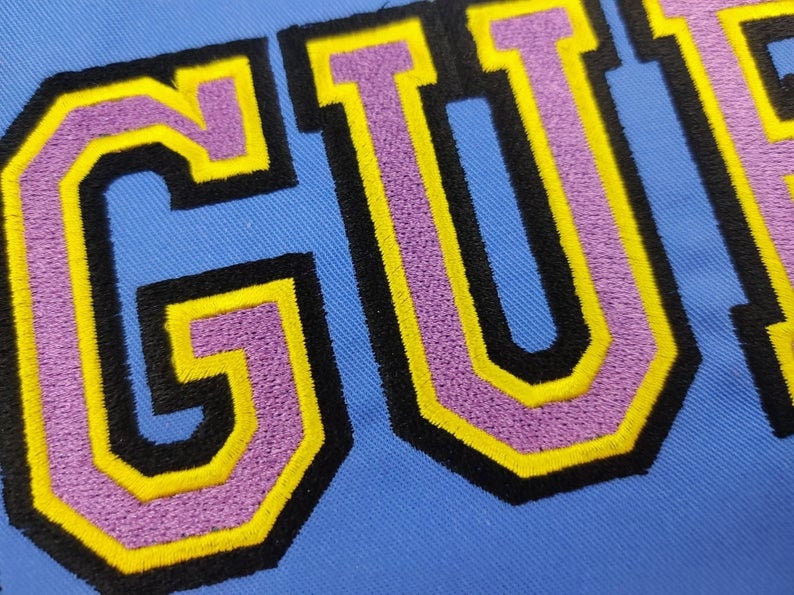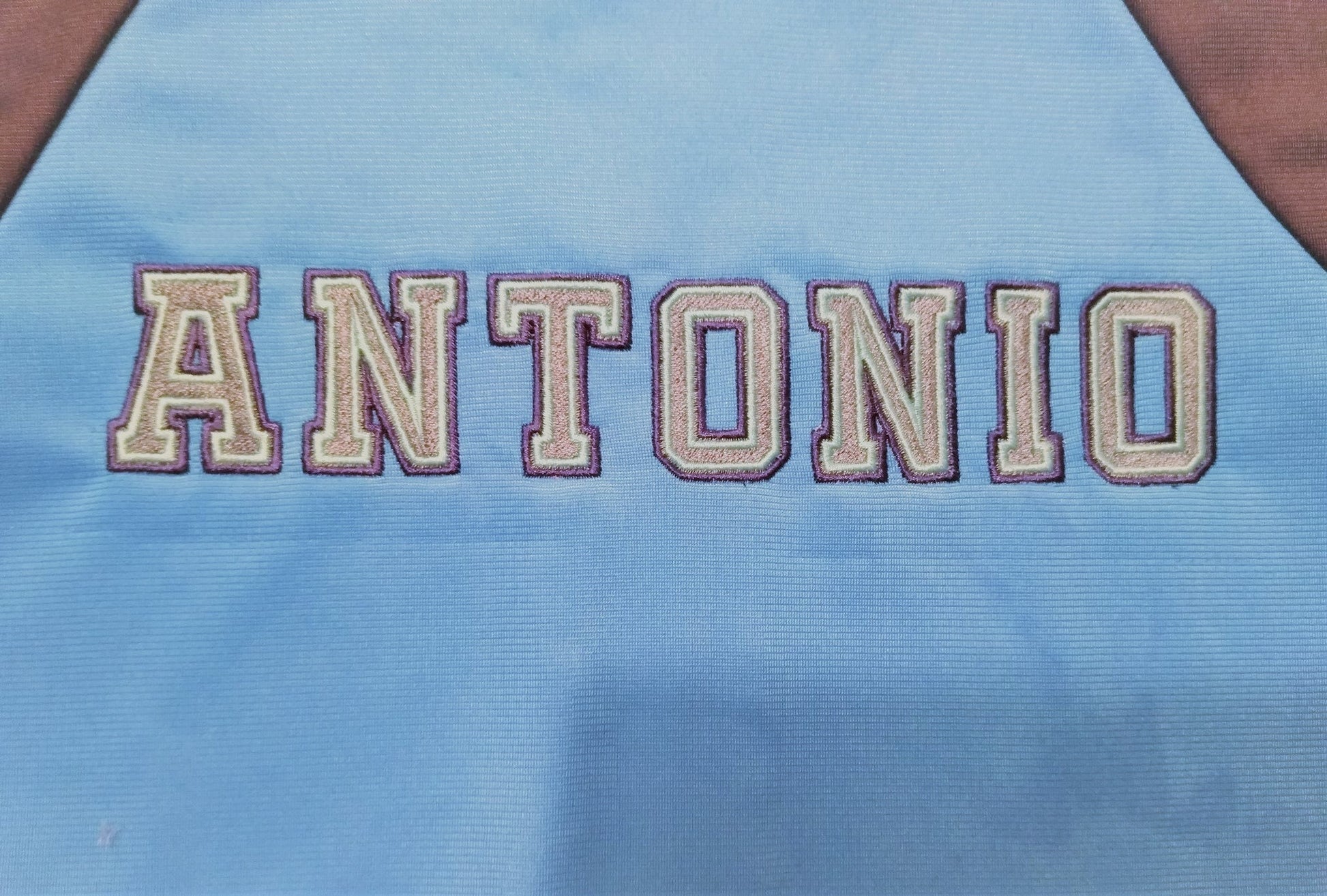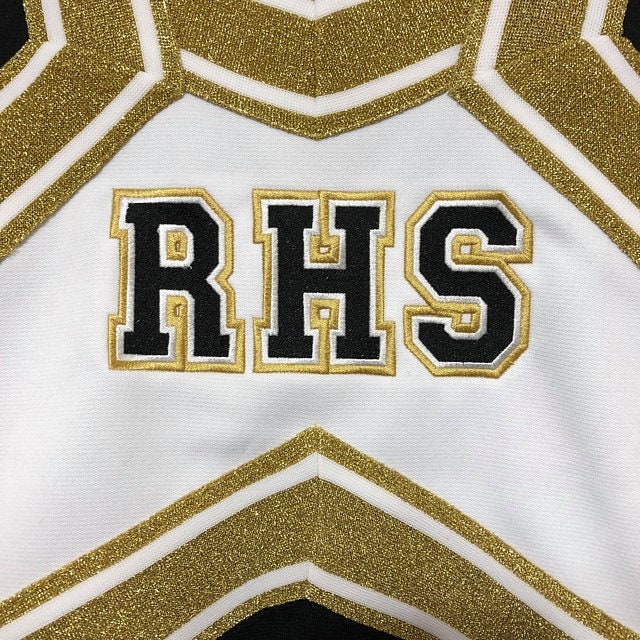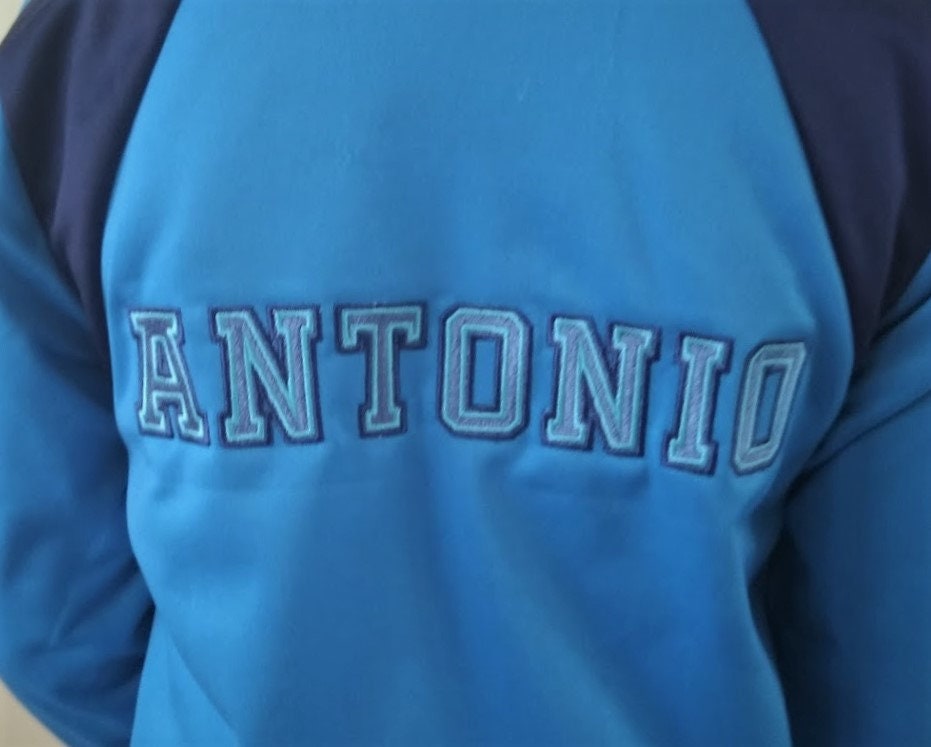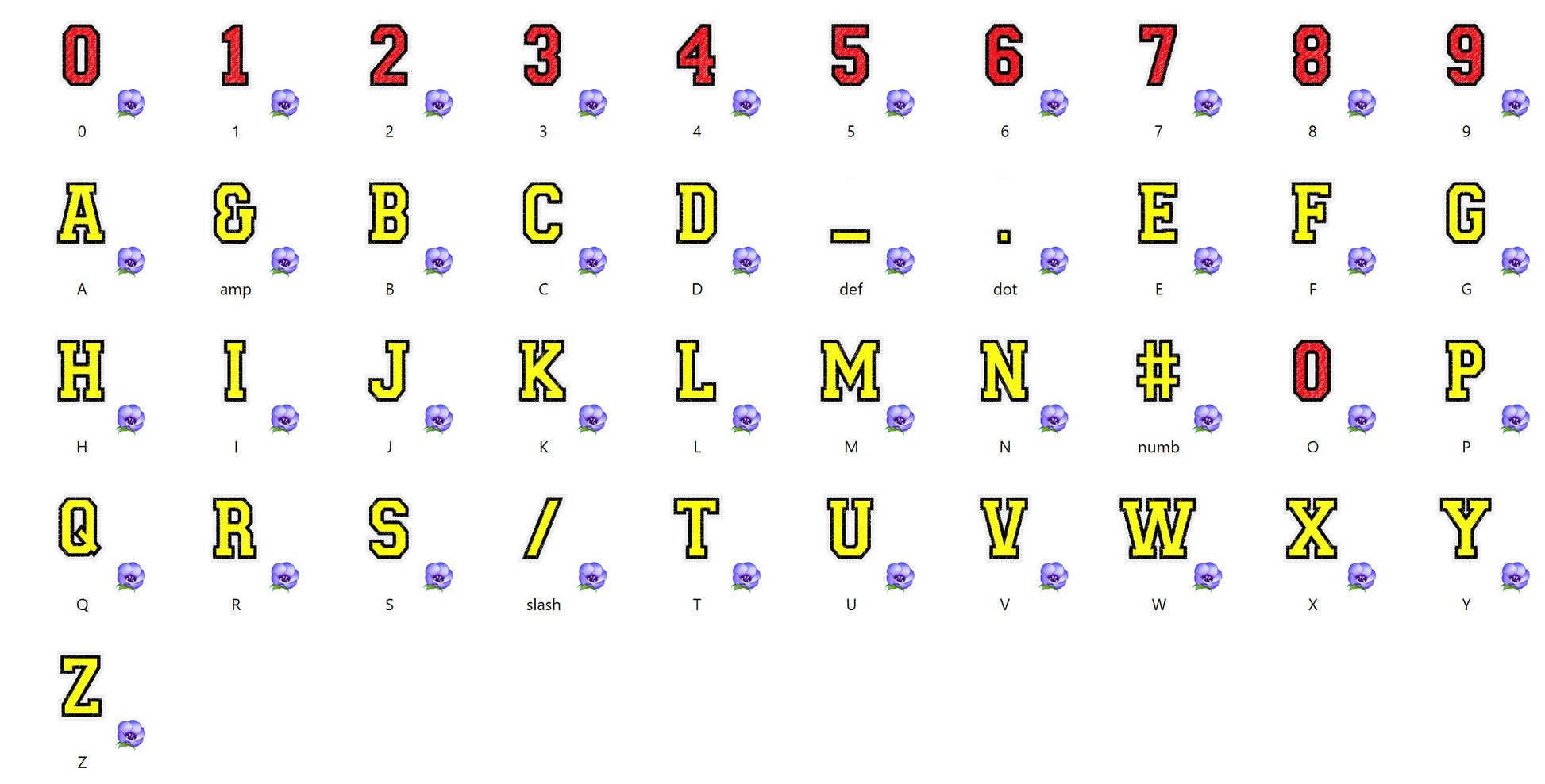
Or click to open the linkAn athletic varsity block font in fill stitch with two contrast outlines, for team names and numbers on shirts and hoodies.
Three colors: the main fill color and two contrast outlines. Capital letters A to Z, numbers 0 to 9 and punctuation in six sizes: 1.4, 1.9, 2.2, 2.6, 2.9 and 3.3 inches.